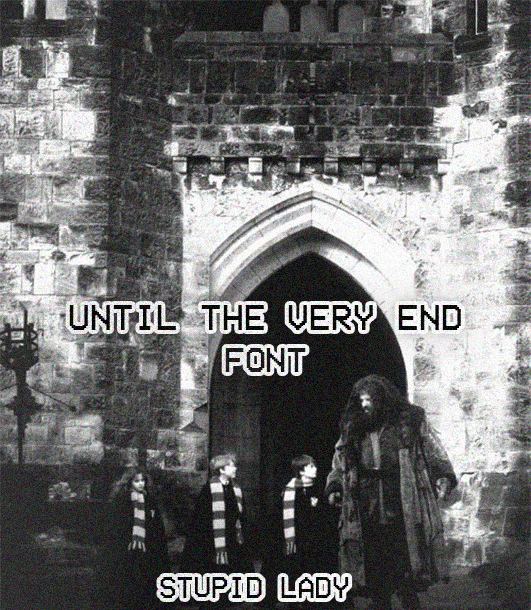
Vcr Mono Font . Vcr osd mono is a pixel/bitmap type font that can be used on any device such as pc,. vcr osd mono font was inspired by 1970’s american logos, providing you with an elegant font for free to download for. vcr osd mono is a pixelated font inspired by vintage tech and the 80s. Learn about its characteristics, usage,. vcr osd mono download is available free from 8font.com. vcr osd mono is a font designed by riciery leal that contains 206 characters and 153 glyphs. It offers monospaced characters with a glitchy charm and is free for. Vcr osd mono à € by riciery leal. download the vcr osd mono font by mrmanet, a free font for bitmap, pixel, lcd, computer and video game display. In bitmap (21 px) [help] 3,548,894 downloads (1,094.
vcr osd mono is a font designed by riciery leal that contains 206 characters and 153 glyphs. In bitmap (21 px) [help] 3,548,894 downloads (1,094. vcr osd mono is a pixelated font inspired by vintage tech and the 80s. Vcr osd mono à € by riciery leal. vcr osd mono font was inspired by 1970’s american logos, providing you with an elegant font for free to download for. download the vcr osd mono font by mrmanet, a free font for bitmap, pixel, lcd, computer and video game display. It offers monospaced characters with a glitchy charm and is free for. Learn about its characteristics, usage,. Vcr osd mono is a pixel/bitmap type font that can be used on any device such as pc,. vcr osd mono download is available free from 8font.com.
Vcr Mono Font Vcr osd mono is a pixel/bitmap type font that can be used on any device such as pc,. Vcr osd mono à € by riciery leal. In bitmap (21 px) [help] 3,548,894 downloads (1,094. vcr osd mono font was inspired by 1970’s american logos, providing you with an elegant font for free to download for. vcr osd mono is a font designed by riciery leal that contains 206 characters and 153 glyphs. download the vcr osd mono font by mrmanet, a free font for bitmap, pixel, lcd, computer and video game display. Learn about its characteristics, usage,. vcr osd mono download is available free from 8font.com. vcr osd mono is a pixelated font inspired by vintage tech and the 80s. Vcr osd mono is a pixel/bitmap type font that can be used on any device such as pc,. It offers monospaced characters with a glitchy charm and is free for.
VCR OSD Mono Font » Fonts Max Vcr Mono Font vcr osd mono download is available free from 8font.com. Vcr osd mono is a pixel/bitmap type font that can be used on any device such as pc,. It offers monospaced characters with a glitchy charm and is free for. vcr osd mono font was inspired by 1970’s american logos, providing you with an elegant font for free to. Vcr Mono Font.
VCR OSD Mono Font Free Download Vcr Mono Font It offers monospaced characters with a glitchy charm and is free for. Learn about its characteristics, usage,. vcr osd mono download is available free from 8font.com. Vcr osd mono is a pixel/bitmap type font that can be used on any device such as pc,. In bitmap (21 px) [help] 3,548,894 downloads (1,094. download the vcr osd mono font. Vcr Mono Font.
VCR OSD Mono Font Instant Download! FontSwan Vcr Mono Font vcr osd mono is a pixelated font inspired by vintage tech and the 80s. In bitmap (21 px) [help] 3,548,894 downloads (1,094. It offers monospaced characters with a glitchy charm and is free for. Vcr osd mono à € by riciery leal. vcr osd mono is a font designed by riciery leal that contains 206 characters and 153. Vcr Mono Font.
VCR OSD Mono Free Pixel Font Hipsthetic Vcr Mono Font vcr osd mono is a font designed by riciery leal that contains 206 characters and 153 glyphs. In bitmap (21 px) [help] 3,548,894 downloads (1,094. vcr osd mono download is available free from 8font.com. download the vcr osd mono font by mrmanet, a free font for bitmap, pixel, lcd, computer and video game display. Vcr osd mono. Vcr Mono Font.
VCR OSD Mono font Vcr Mono Font In bitmap (21 px) [help] 3,548,894 downloads (1,094. vcr osd mono download is available free from 8font.com. Vcr osd mono is a pixel/bitmap type font that can be used on any device such as pc,. Vcr osd mono à € by riciery leal. download the vcr osd mono font by mrmanet, a free font for bitmap, pixel, lcd,. Vcr Mono Font.
VCR OSD Mono Font Instant Download! FontSwan Vcr Mono Font vcr osd mono download is available free from 8font.com. vcr osd mono is a font designed by riciery leal that contains 206 characters and 153 glyphs. Learn about its characteristics, usage,. It offers monospaced characters with a glitchy charm and is free for. vcr osd mono is a pixelated font inspired by vintage tech and the 80s.. Vcr Mono Font.
VCR OSD Mono Font FontYukle Vcr Mono Font vcr osd mono font was inspired by 1970’s american logos, providing you with an elegant font for free to download for. download the vcr osd mono font by mrmanet, a free font for bitmap, pixel, lcd, computer and video game display. vcr osd mono download is available free from 8font.com. In bitmap (21 px) [help] 3,548,894 downloads. Vcr Mono Font.
VCR OSD Mono Font [Baldi's Basics] [Mods] Vcr Mono Font vcr osd mono font was inspired by 1970’s american logos, providing you with an elegant font for free to download for. It offers monospaced characters with a glitchy charm and is free for. vcr osd mono is a pixelated font inspired by vintage tech and the 80s. Vcr osd mono à € by riciery leal. vcr osd. Vcr Mono Font.
VCR OSD Mono Font » Fonts Max Vcr Mono Font download the vcr osd mono font by mrmanet, a free font for bitmap, pixel, lcd, computer and video game display. In bitmap (21 px) [help] 3,548,894 downloads (1,094. Vcr osd mono is a pixel/bitmap type font that can be used on any device such as pc,. It offers monospaced characters with a glitchy charm and is free for. . Vcr Mono Font.